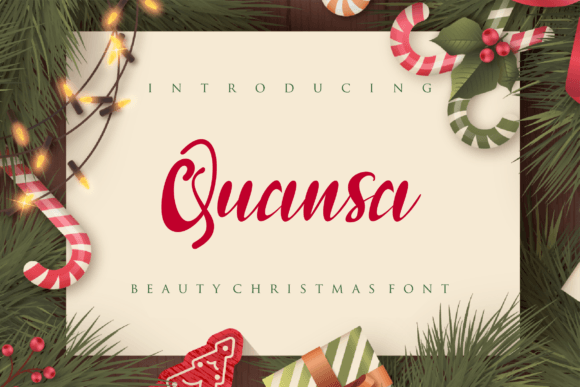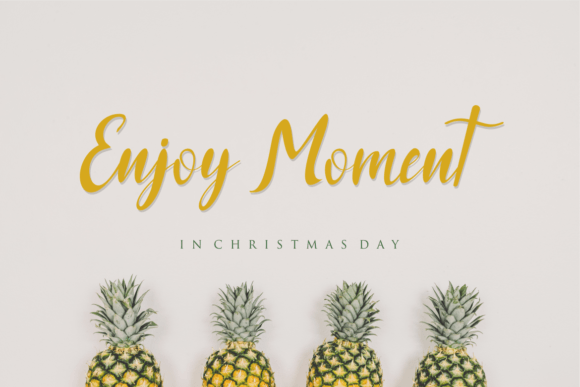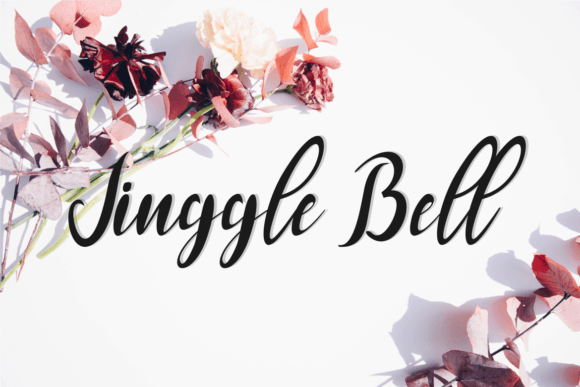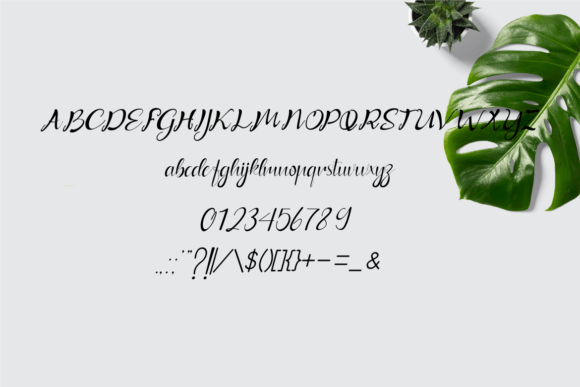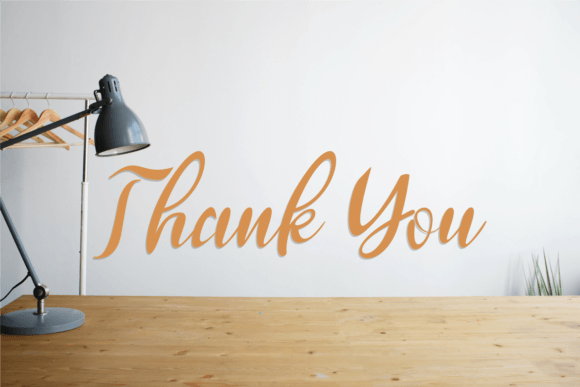
Quansa Font
About Quansa Font
Quansa is a sweet and cursive handwritten font that brings a gentle and romantic touch to your design projects. With its elegant and flowing letterforms, this font is a versatile choice for various creative endeavors. The gentle and graceful appearance of Quansa makes it a great fit for a wide range of design applications. Whether you’re working on wedding invitations, greeting cards, posters, branding materials, or any other project that calls for a touch of elegance, this font can enhance your designs beautifully.
Sophistication and Charm
The cursive script style of Quansa adds a sense of sophistication and charm to your text. Its fluid and interconnected letters create a natural and handwritten look that exudes warmth and personality. Therefore, it is an excellent choice for conveying emotions and sentiments in your designs.
Digital and Print Projects
Quansa is well-suited for both digital and print projects. Its readability and distinct character design ensure that your message is delivered clearly and elegantly. Moreover, the font’s romantic and joyful aura can make your projects more engaging and appealing to your audience.
Versatile Design Option
Whether you’re designing wedding materials, crafting heartfelt greeting cards, or adding a touch of romance to your branding, Quansa provides a versatile and stylish option. Its timeless and graceful style adds refinement to your designs while maintaining warmth and authenticity.
In conclusion, Quansa is not just a font; it’s a design companion that enhances your projects with elegance and romance. Its versatility makes it an invaluable tool for designers seeking to make a lasting impression. Thus, let Quansa be the enchanting muse for your next creative adventure.